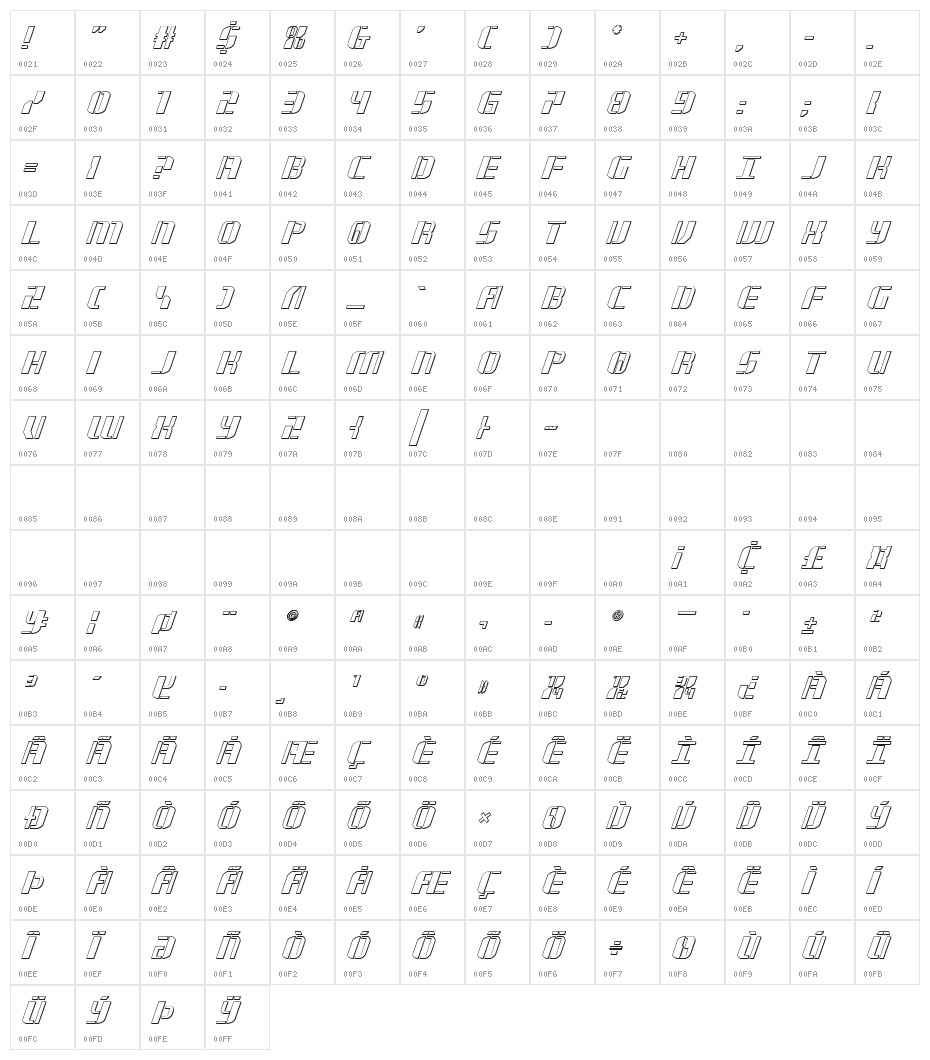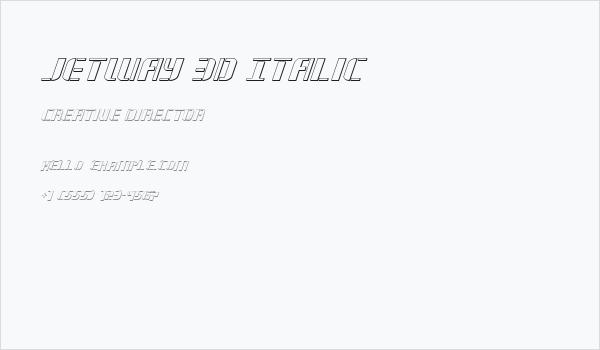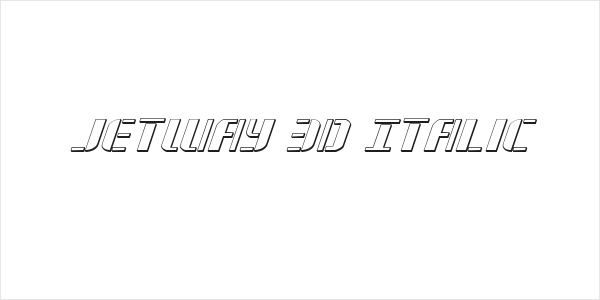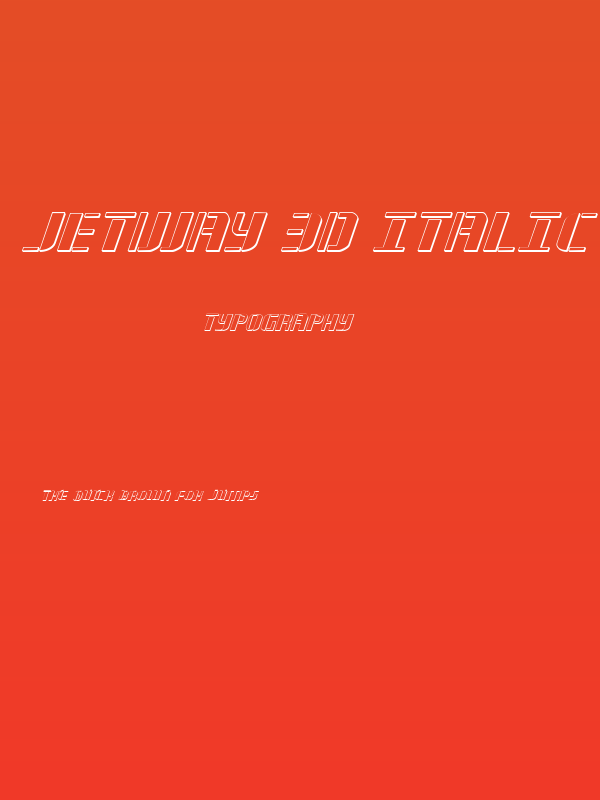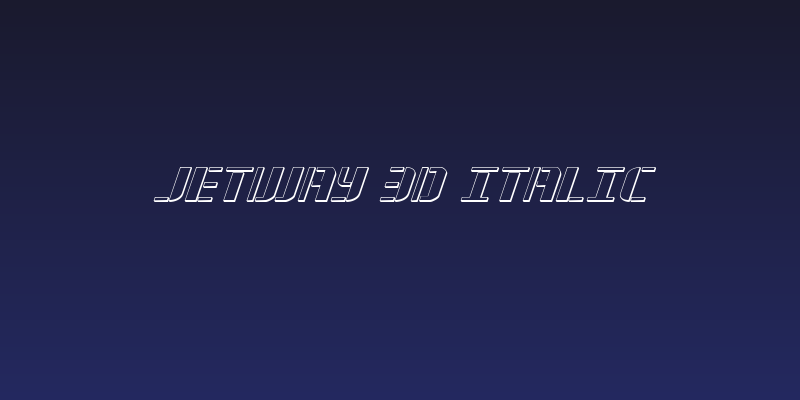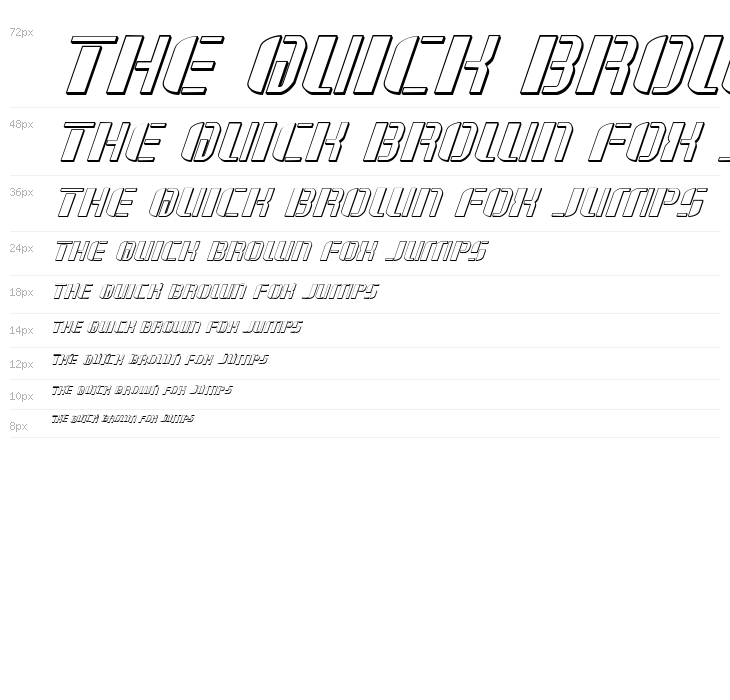
Jetway 3D Italic Font
Jetway 3D Italic Description
This font features a distinct 3D effect with italicized, slanted characters that create a sense of motion and depth. The letters are outlined, giving them a hollow appearance, which adds to the futuristic and dynamic feel. The geometric shapes are consistent across both uppercase and lowercase letters, as well as numbers and special characters. The design is clean and modern, with a focus on angular lines and sharp edges, making it stand out in any design project.
| Proposed Projects | Ideal for tech-themed designs, futuristic branding, video game titles, and sci-fi movie posters. |